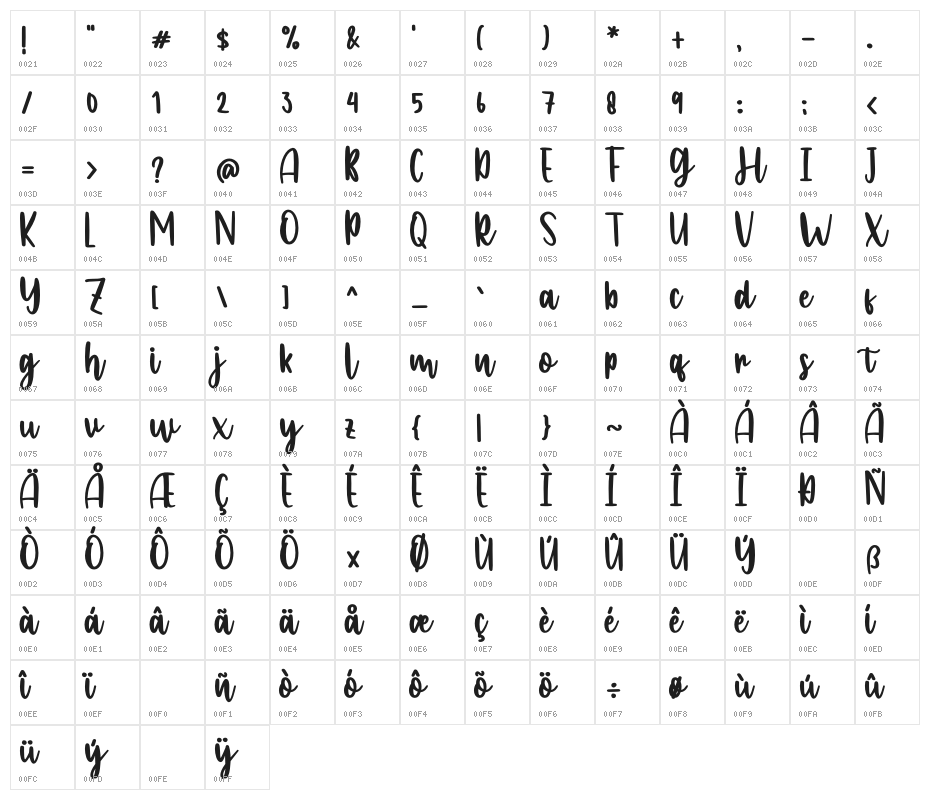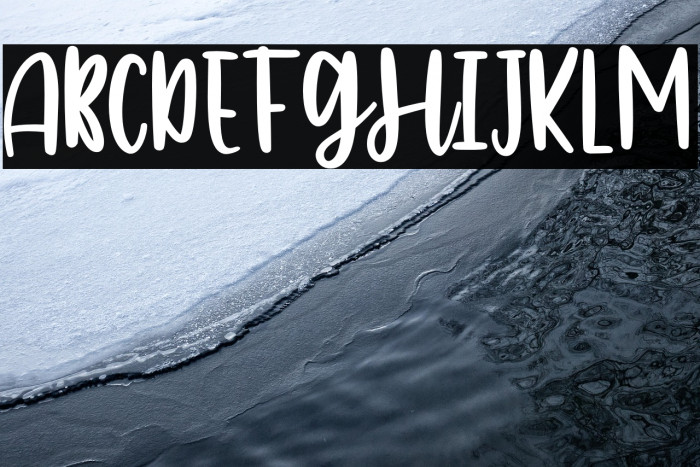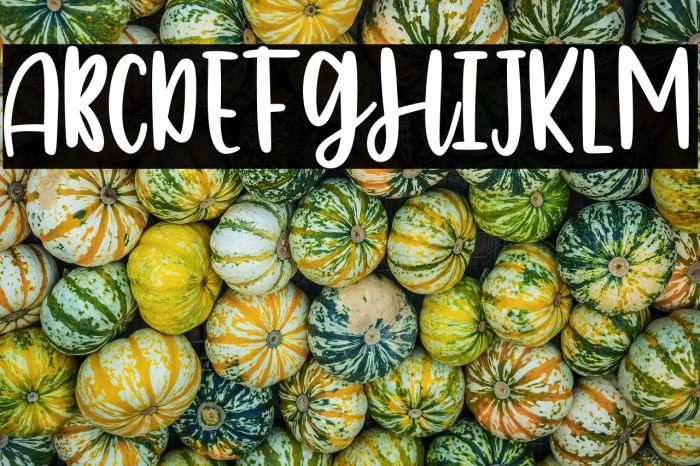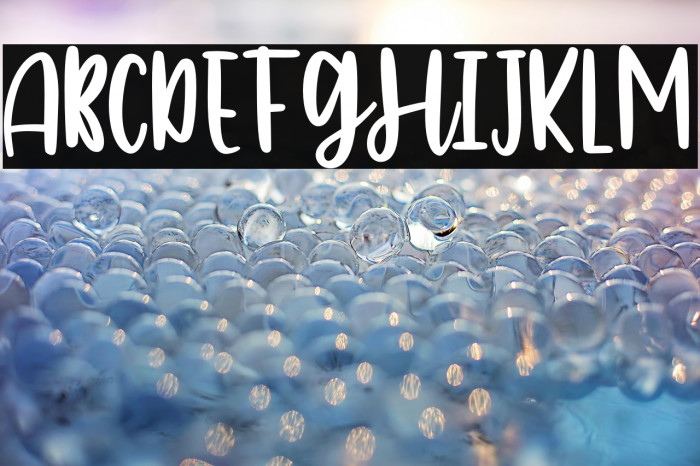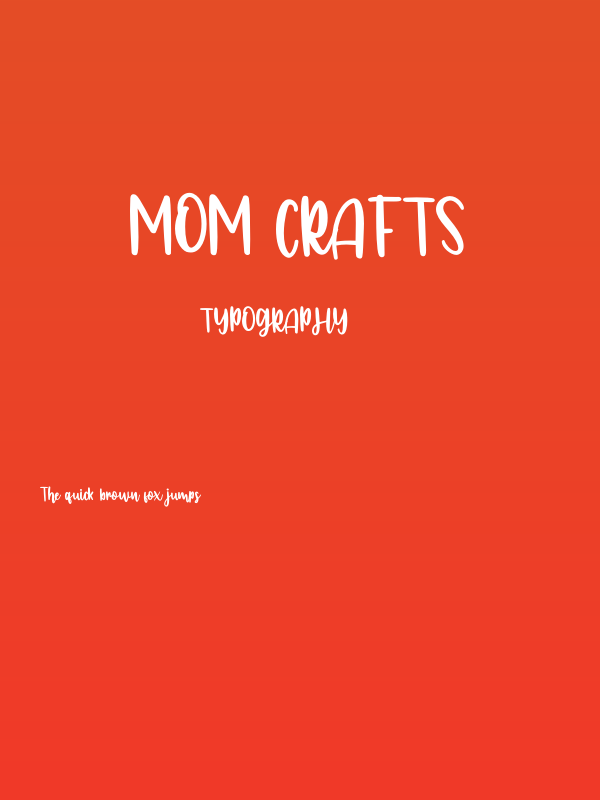
Mom Crafts Font
Mom Crafts Description
A playful, handwritten script font with a casual and friendly appearance. The letters are bold and slightly irregular, giving it a lively and informal feel.
| Overall Style | Casual and friendly |
| Use Case | Headlines, Craft projects, Informal designs |
| Proposed Projects | Greeting cards, invitations, DIY crafts, social media graphics. |